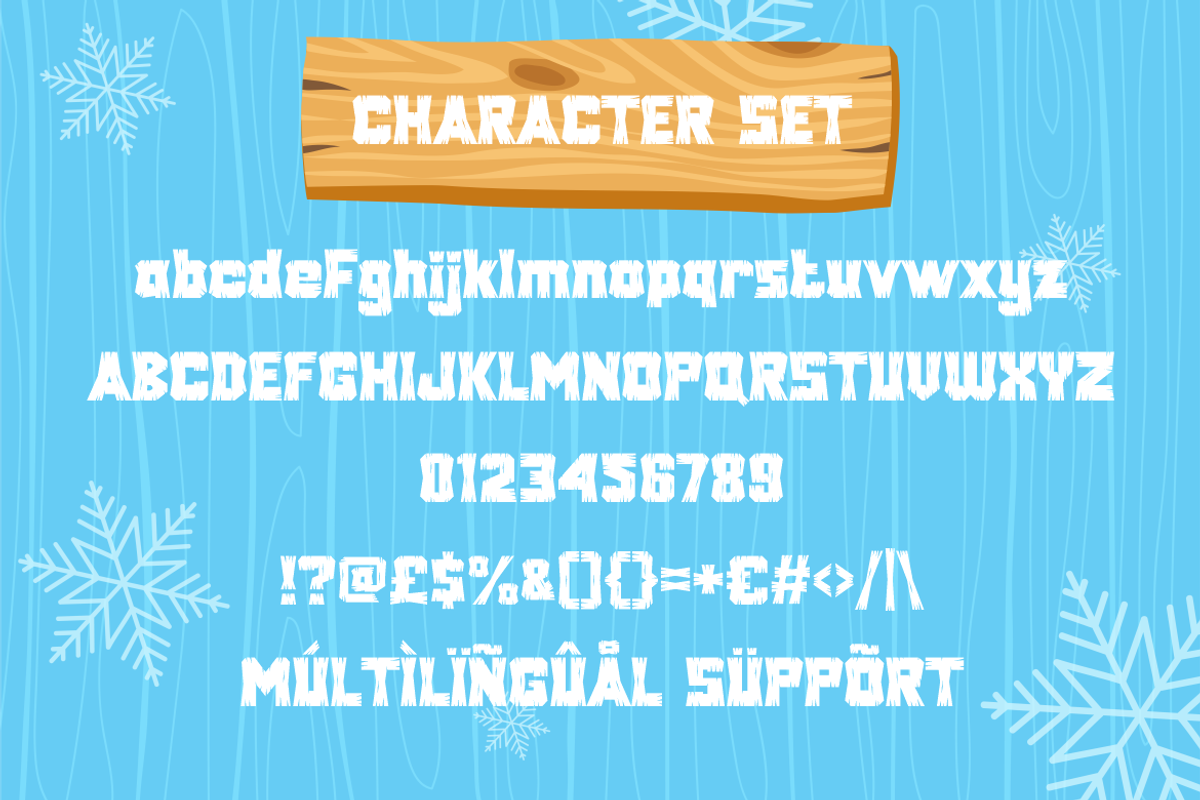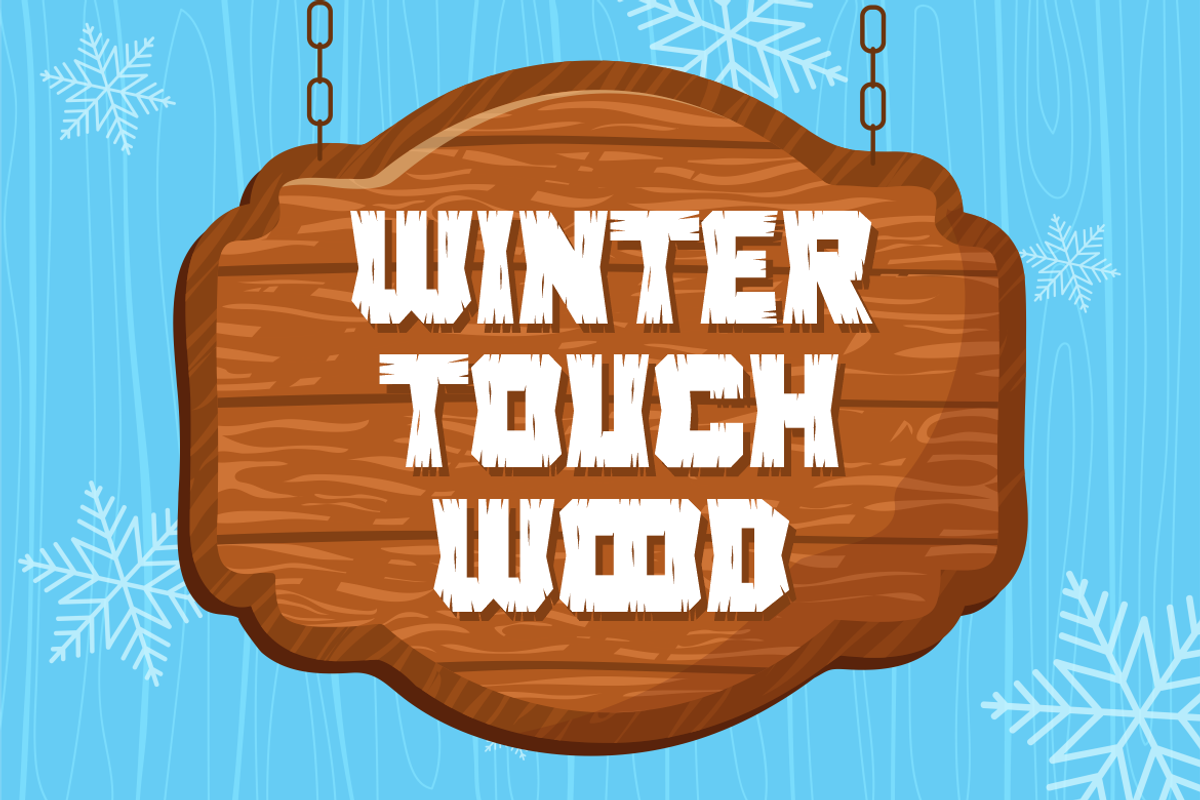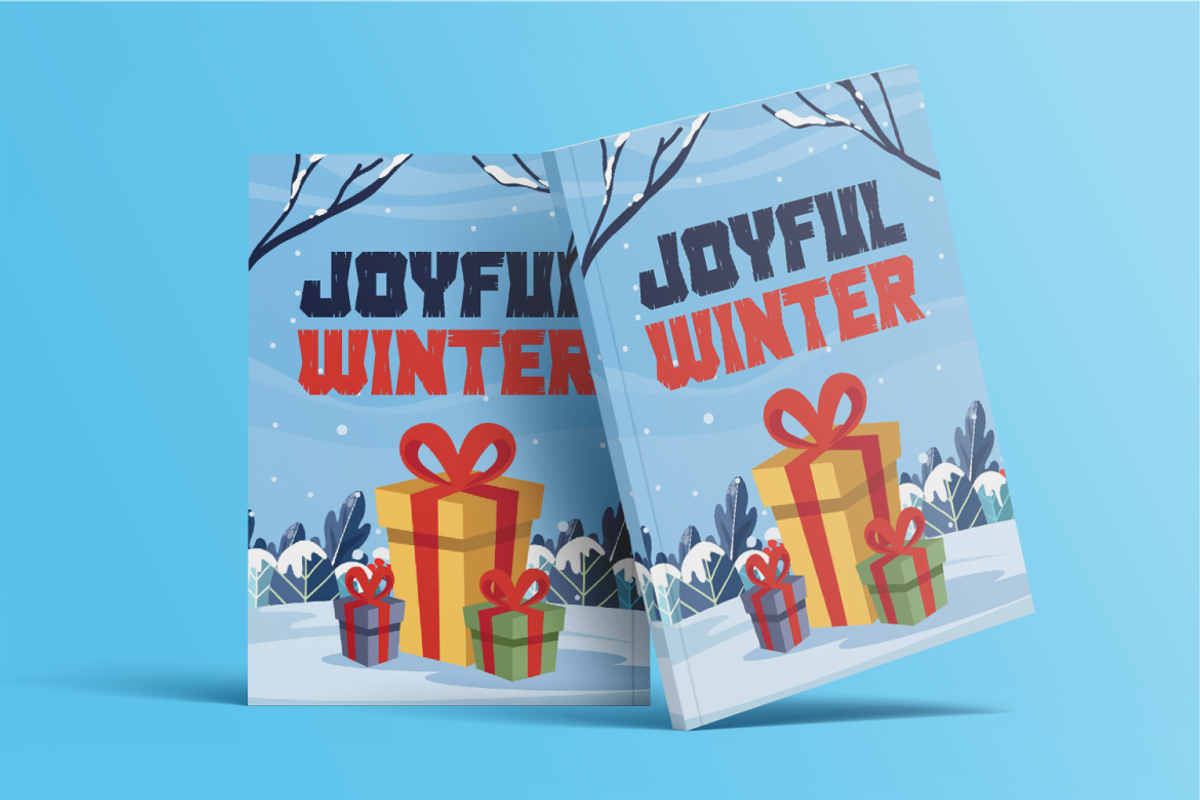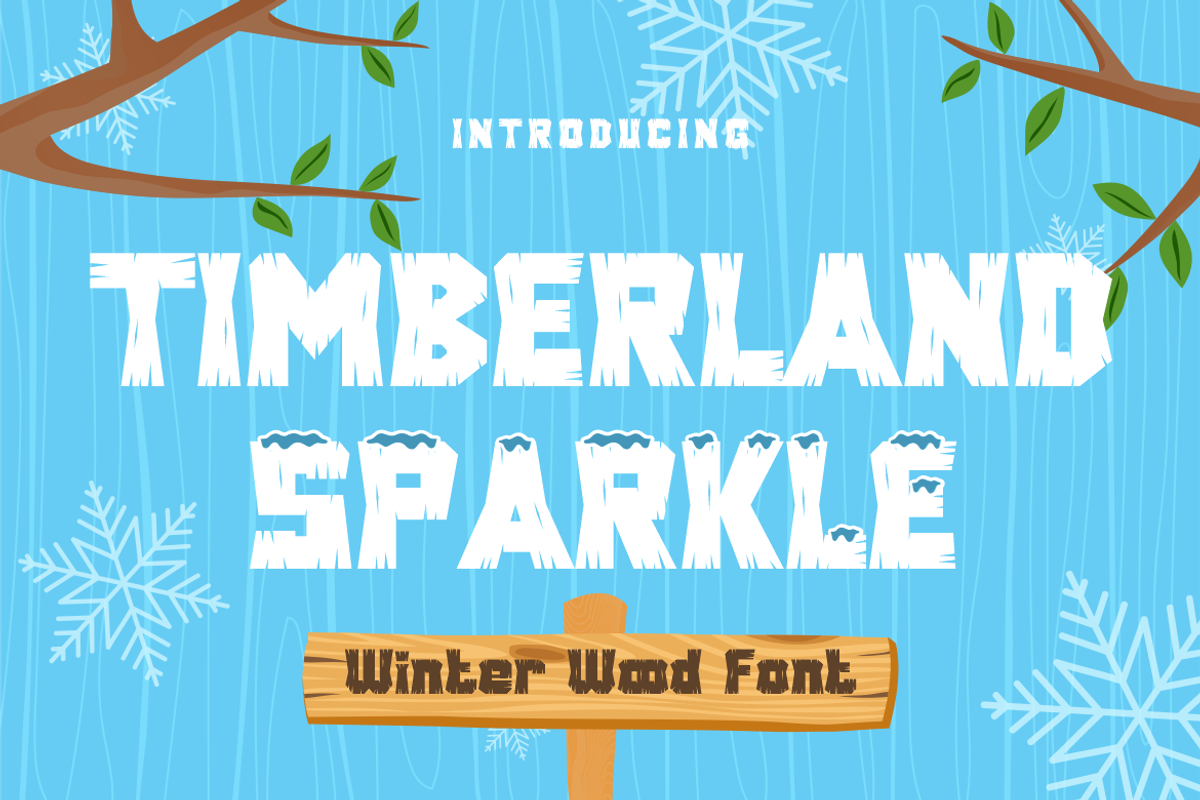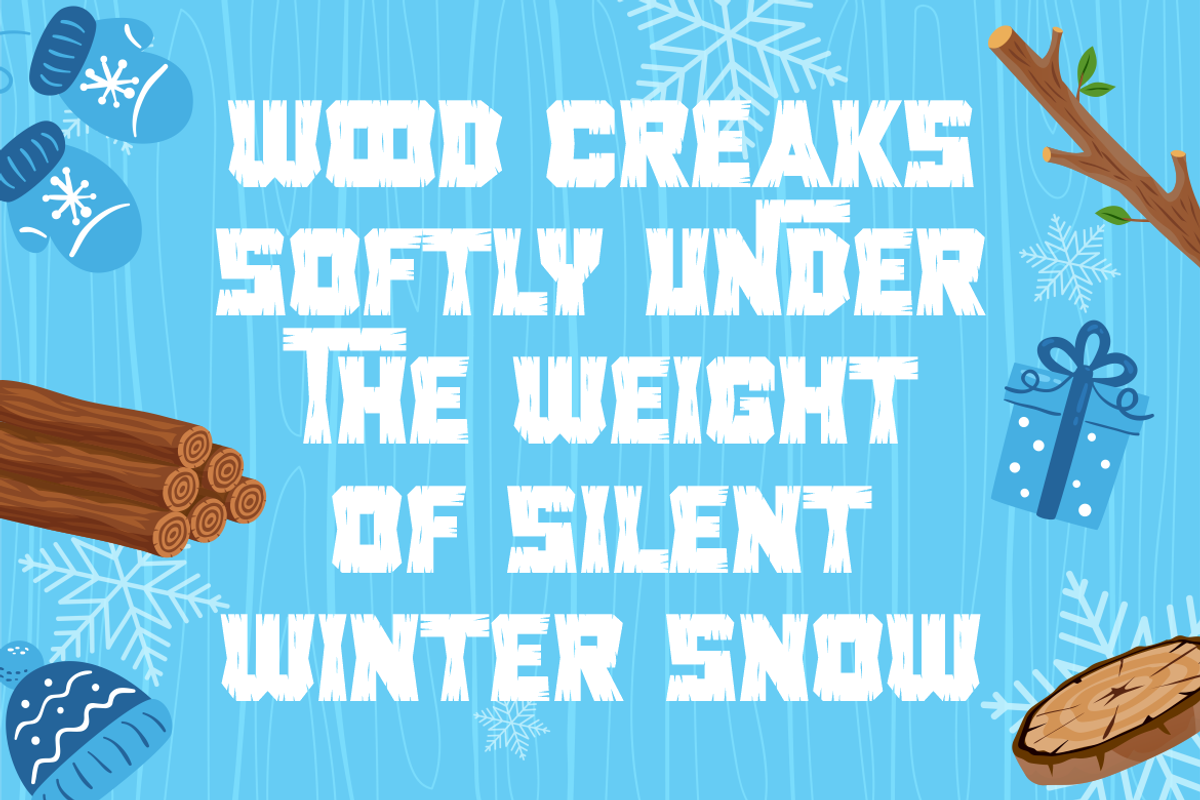
Timberland Sparkle - Wood Font
Step into a world of cozy winter charm with Timberland Sparkle, a quirky and playful display font inspired by frosted timber textures and snowy cabin vibes. Each letter is meticulously crafted to resemble rugged wood grains dusted with ice, evoking the essence of a winter forest. The sharp, jagged edges and carved textures simulate a handcrafted appearance, while the blocky geometric structure ensures bold visibility—making it perfect for standout headlines and seasonal designs. The snow-tipped styling on the uppercase characters adds an extra dose of frosty flair, ideal for holiday projects or nature-themed branding.
Timberland Sparkle is more than just a seasonal novelty—it’s a versatile design asset ready to elevate posters, book covers, children’s stories, adventure games, winter-themed branding, signage, and more. The full character set includes uppercase, lowercase, numbers, punctuation, and multilingual support, ensuring broad usability across both print and digital formats. Whether you're designing for winter festivals, woodland packaging, or crafting playful DIY cards, this font brings a heartwarming rustic touch with a magical seasonal twist.